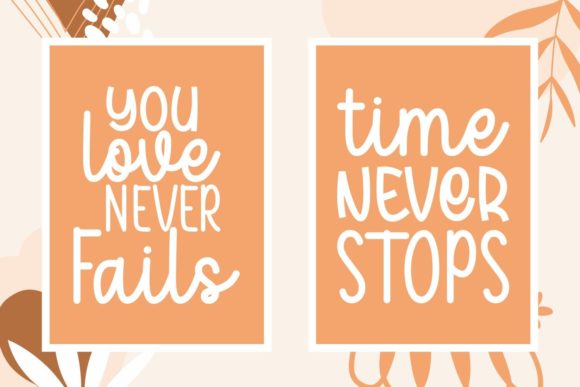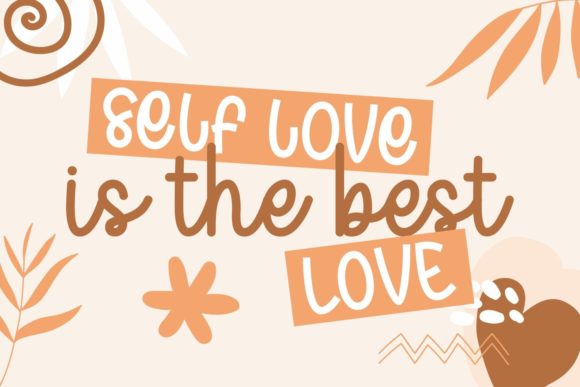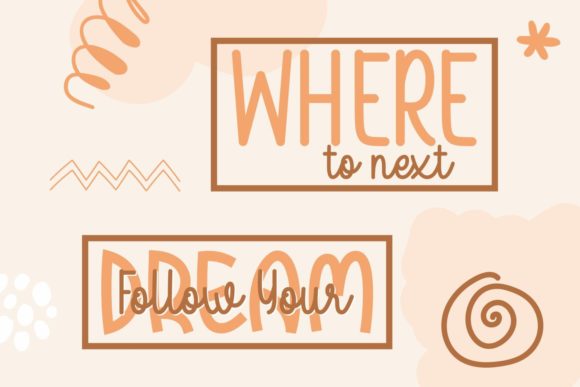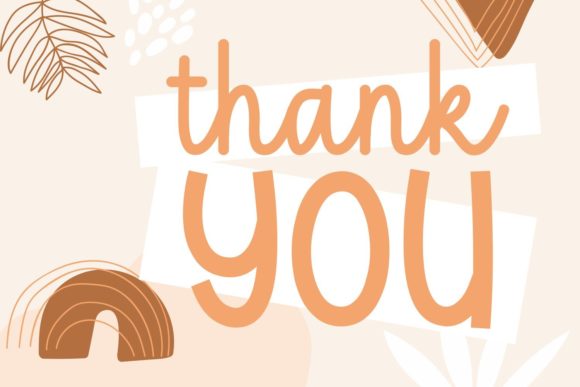
Have you ever found yourself staring at a blank canvas, desperate for inspiration to strike? The blank page can be a daunting sight, but what if I told you that the key to unlocking your creativity lies in the perfect font?
Meet the Better Days Ahead Font, a delightful duo-styled handwritten font that brings a modern yet whimsical touch to your designs. This charming font is designed to transport your audience to a magical world, making it the perfect addition to any project. Whether you’re a seasoned designer or just starting out, the Better Days Ahead Font is a valuable tool that will elevate your work and leave a lasting impression.
- Font Style: Script, Handwritten
- Unique Characteristics: Hand-drawn design, elegant and cursive feel, perfect for titles and headings
Better Days Ahead Font Review
Overall, I think the Better Days Ahead font has a lot of potential, but it’s not without its flaws. Let’s start with what works well:
- ✨ Beautifully crafted cursive script that’s perfect for creating a sense of elegance and sophistication.
- ✨ Great for use in headings, titles, and other high-impact text where you want to make a statement.
- ✨ A wide range of weights and styles to choose from, giving you a lot of flexibility in terms of how you want to use the font.
However, there are some limitations that prevent me from giving it a full 5-star review:
- ⚠️ Some of the weights and styles can feel a bit inconsistent, which can make it difficult to use in certain contexts.
- ⚠️ The font doesn’t include a lot of supporting characters, which can make it difficult to use in certain languages or for specific tasks.
- ⚠️ The font can feel a bit overused, which can make it harder to stand out in a crowded design landscape.
Overall, I think the Better Days Ahead font is a solid choice for designers who want to add a touch of elegance to their work. However, it’s not without its flaws, and you may need to do some tweaking to get the most out of it.
For optimal results, use the Better Days Ahead font in conjunction with a clean and minimalist design aesthetic. Avoid using too many fonts or excessive text, as this can detract from the overall impact of the font.